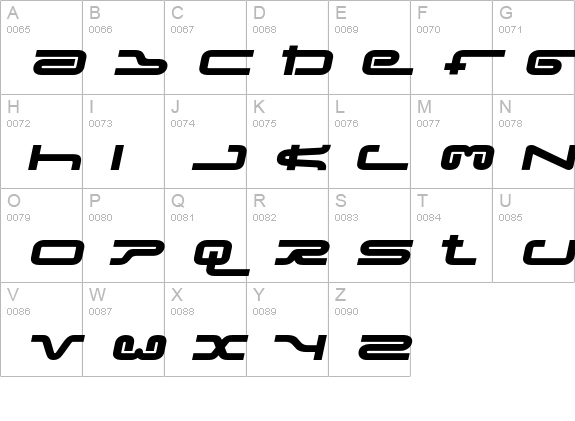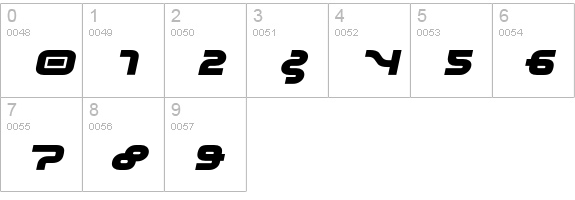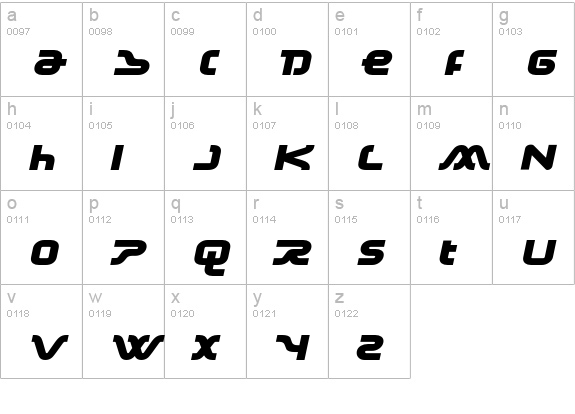
FrozenDogTreats Font Details
Introducing FrozenDogTreats font, a delightful and playful typeface perfect for adding a touch of whimsy to your designs. This charming font features rounded edges and a friendly appearance that will make your text stand out with a fun and inviting feel. Whether you're working on a project for kids, pet-related content, or simply want to infuse some joy into your design, FrozenDogTreats font is the perfect choice. Best of all, FrozenDogTreats font is available for free download at FontsMarket.com. You can easily access this adorable font and start using it in your projects right away. Embrace the creativity and cheerfulness that FrozenDogTreats font brings to your designs, and watch as your text comes to life with a touch of whimsical charm. Download now and let your imagination run wild with this free and fabulous font!